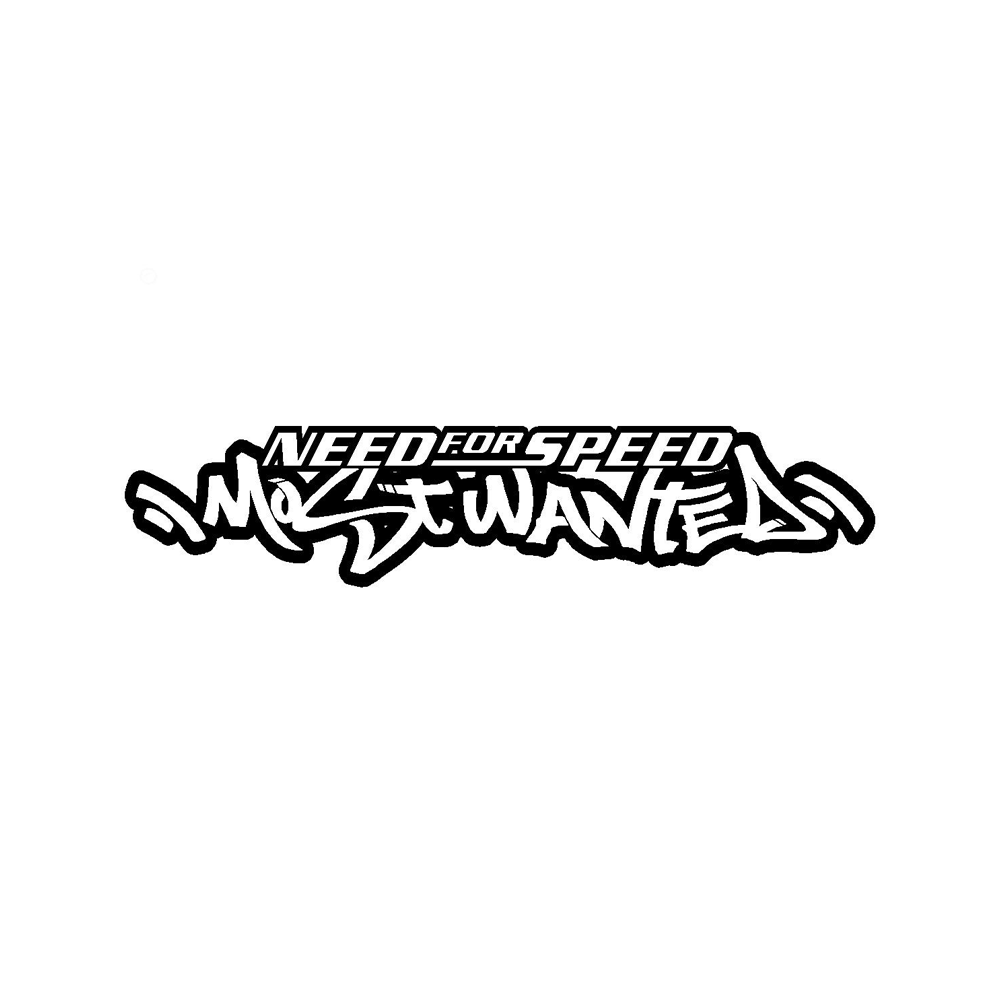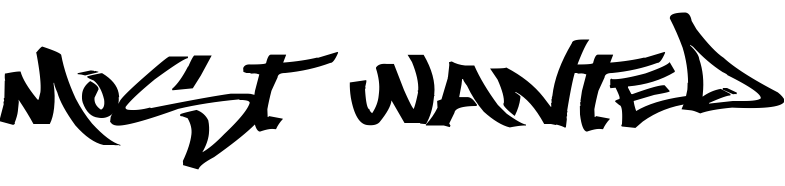
Need for Speed Most Wanted Font
Fonts in UseNeed for Speed: Most Wanted is a racing game developed by Criterion Games and published by Electronic Arts. The game features an open-world environment, where players can compete in street races and evade the police while trying to become the most wanted driver in the city.
The poster's film title font closely resembles Serpentine Bold Italic for "NEED FOR SPEED", while the "Most Wanted" font is similar to a free graffiti-style script font called Most Wasted by Magique Fonts.